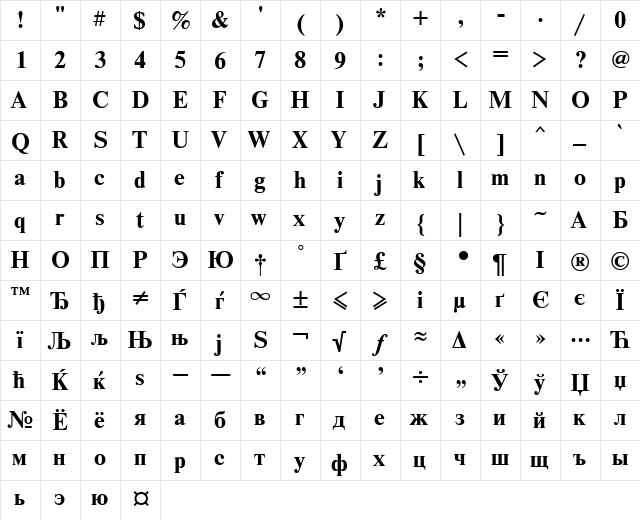
NewtonMACCTT Bold Font Preview
NewtonMACCTT Bold
Design Context for NewtonMACCTT Typeface
NewtonMACCTT takes a measured approach to typography — its balanced proportions and neutral character make it a reliable workhorse for both digital and print work. The heavy weight commands attention and anchors typographic hierarchies.